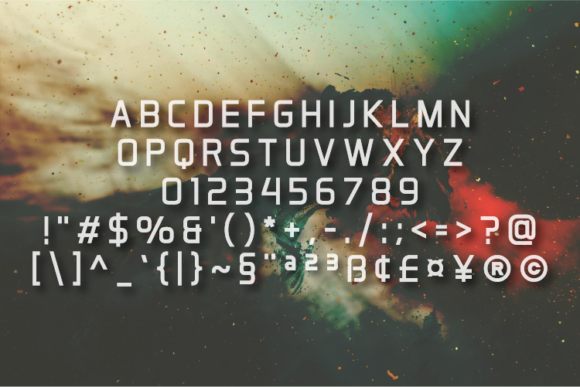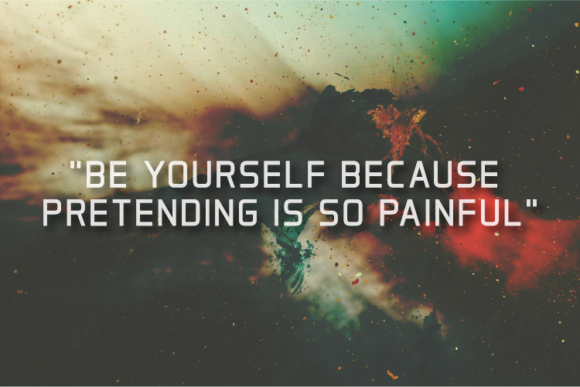
Introducing Greenode Font: The Ultimate Sans Serif for Modern Designs
In the world of typography, a good font can make all the difference in creating a lasting impression. For designers and crafters, finding the perfect font that combines elegance, simplicity, and versatility can be a daunting task. However, look no further than Greenode Font, a minimal yet elegant sans serif font that is poised to become your go-to choice for a wide range of design projects.
The Simplicity and Elegance of Greenode
Greenode Font boasts a neat and simple style that makes it an ideal choice for various design applications. Its minimalistic approach to typography ensures that your message takes center stage, while the font’s elegant lines and curves add a touch of sophistication to your designs. Whether you’re working on a logo, brochure, website, or social media graphics, Greenode’s clean and crisp aesthetic will elevate your work to the next level.
One of the standout features of Greenode Font is its incredible versatility. Its simple yet refined design makes it suitable for a wide variety of projects, from:
- Logos and branding materials: Greenode’s elegant lines and curves create a lasting impression, making it perfect for logos, business cards, and letterheads.
- Web design: The font’s clean and readable style ensures that your website’s content is easily accessible to your audience, improving user experience and engagement.
- Social media graphics: Greenode’s minimalistic approach makes it an excellent choice for social media graphics, such as Facebook posts, Instagram stories, and Twitter headers.
- Print materials: From brochures and flyers to posters and banners, Greenode Font adds a touch of sophistication to any print material.
Why Choose Greenode Font?
So, what sets Greenode Font apart from other sans serif fonts? Here are a few compelling reasons to make Greenode your top choice:
- Readability: Greenode’s clear and concise design ensures that your message is easily readable, even at small font sizes.
- Elegance: The font’s elegant lines and curves add a touch of sophistication to your designs, making them perfect for high-end brands and luxury products.
- Flexibility: Greenode Font is suitable for a wide range of design applications, making it an excellent addition to your font library.
- Modern appeal: Greenode’s minimalistic approach to typography gives your designs a modern and fresh feel, perfect for contemporary brands and projects.
Tips for Using Greenode Font Effectively
To get the most out of Greenode Font, here are a few expert tips to keep in mind:
- Pair it with bold fonts: Combine Greenode with bold fonts to create visual interest and add depth to your designs.
- Experiment with colors: Greenode Font looks great in a variety of colors, so don’t be afraid to experiment and find the perfect hue for your design.
- Use it consistently: Consistency is key when it comes to typography. Use Greenode Font throughout your design to create a cohesive look and feel.
In conclusion, Greenode Font is a versatile and elegant sans serif font that is perfect for modern designs. Its minimalistic approach to typography, combined with its readability and flexibility, make it an excellent choice for a wide range of projects. Whether you’re a designer, crafter, or simply someone looking for a reliable font, Greenode is sure to become your go-to choice. So why wait? Give Greenode Font a try today and elevate your designs to the next level!